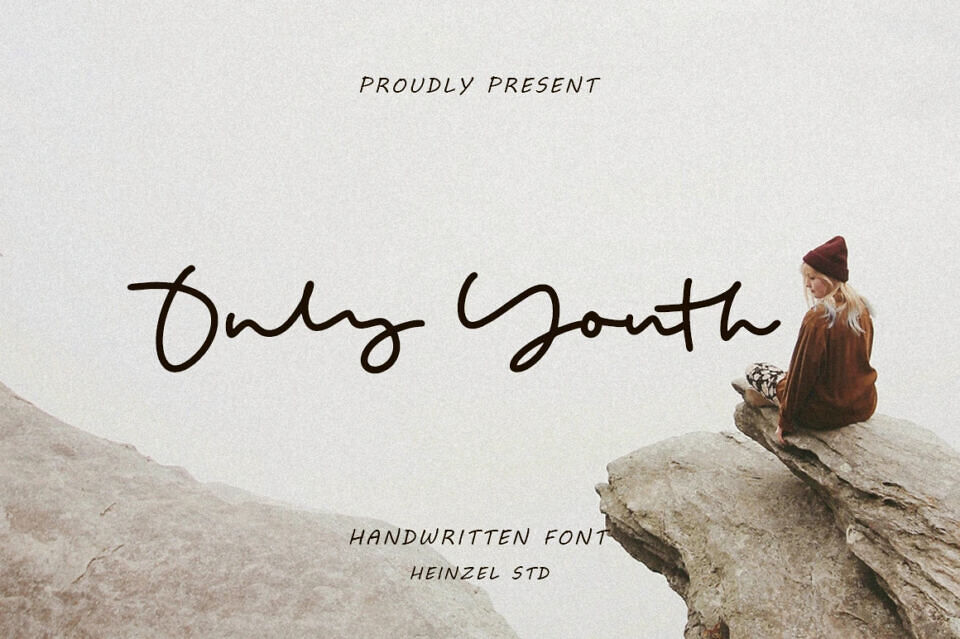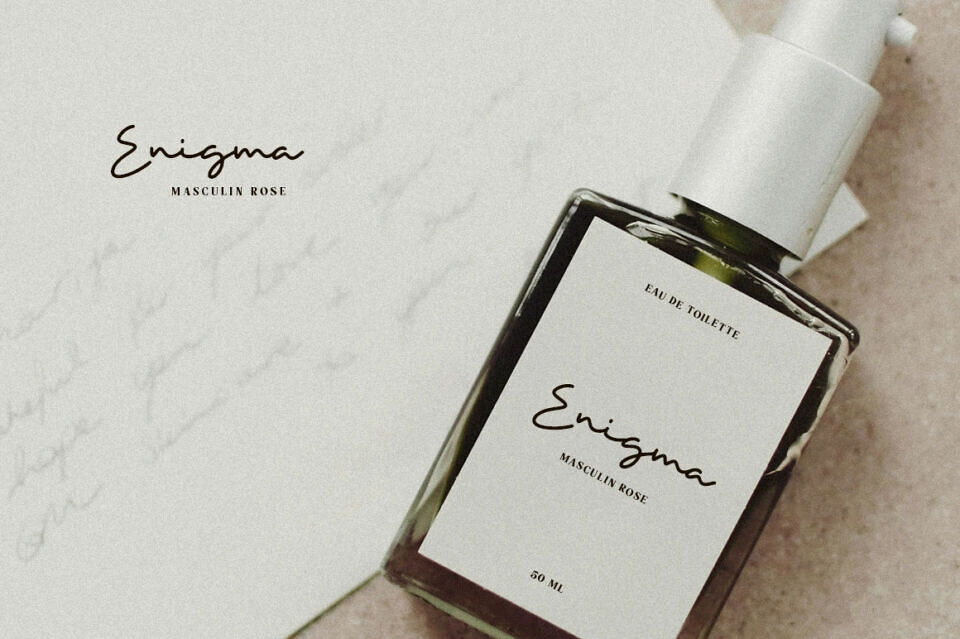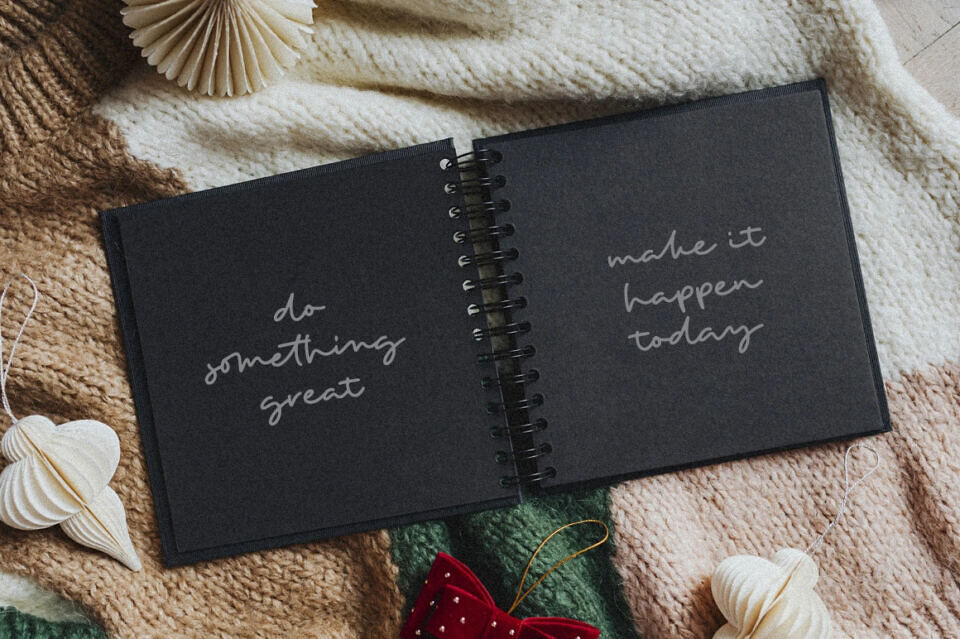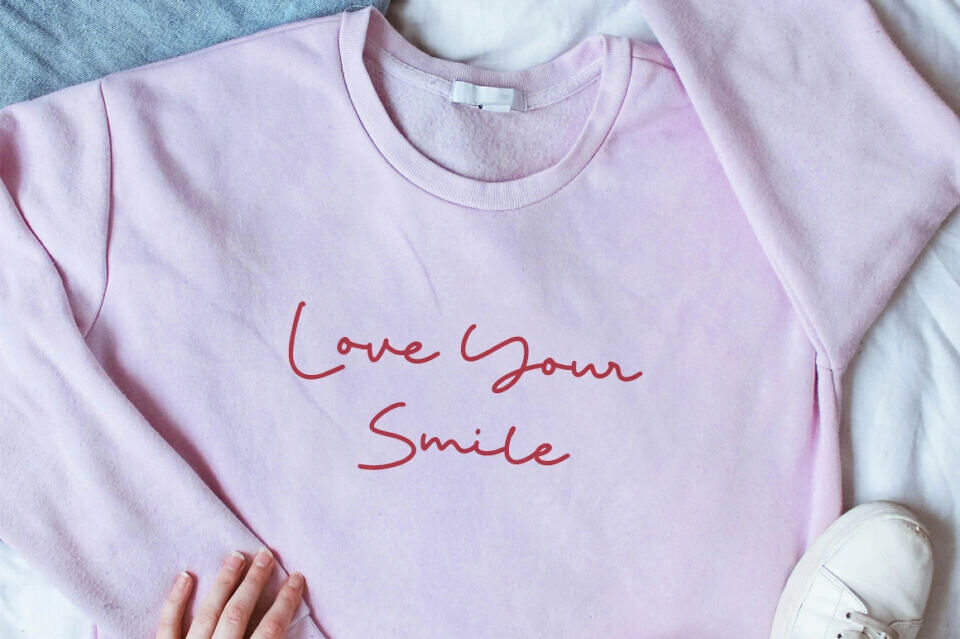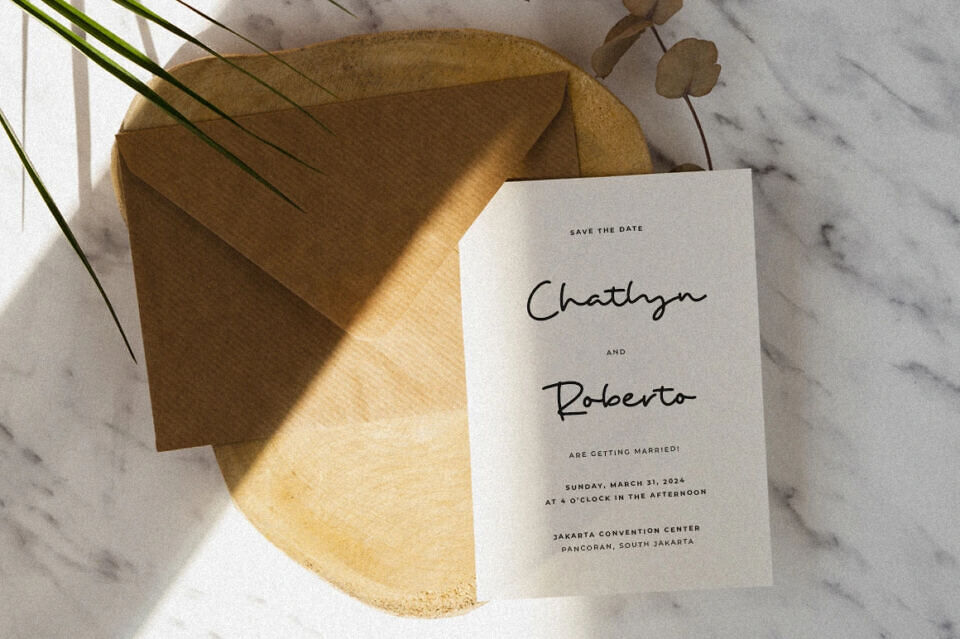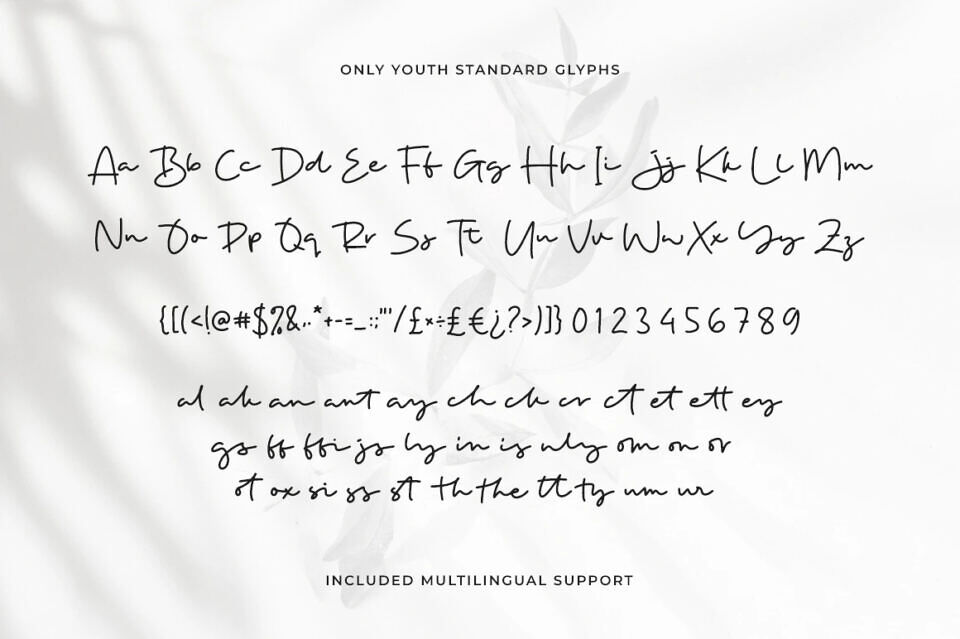
Only Youth is a flowing handwritten font, described by an elegant touch, perfect for your favorite projects. It looks stunning on wedding invitations, thank you cards, quotes, greeting cards, logos, business cards and every other design which needs a handwritten touch. Fall in love with its incredibly distinct and timeless style and use it to create spectacular designs!